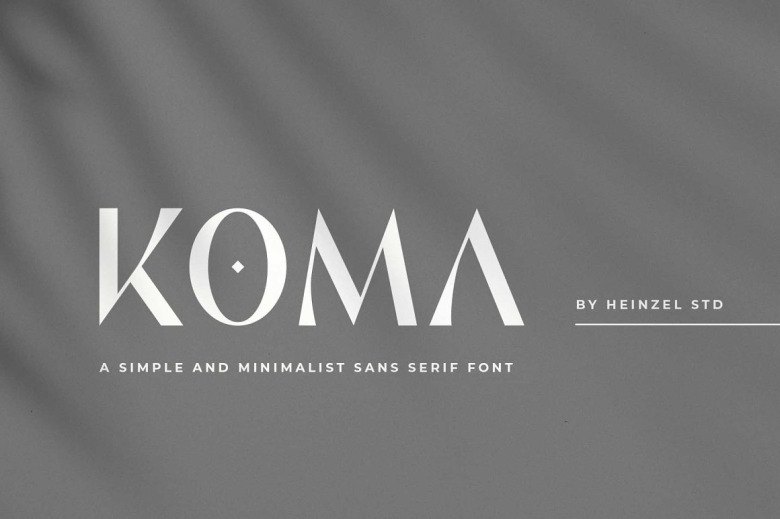
Koma Font
Koma is a Modern Sans Serif and minimalist character font! Koma perfect use for logos, print, collage, body text, and more! It looks minimalist a really cool modern-meets-vintage look to any piece.
Koma Sans Serif Font